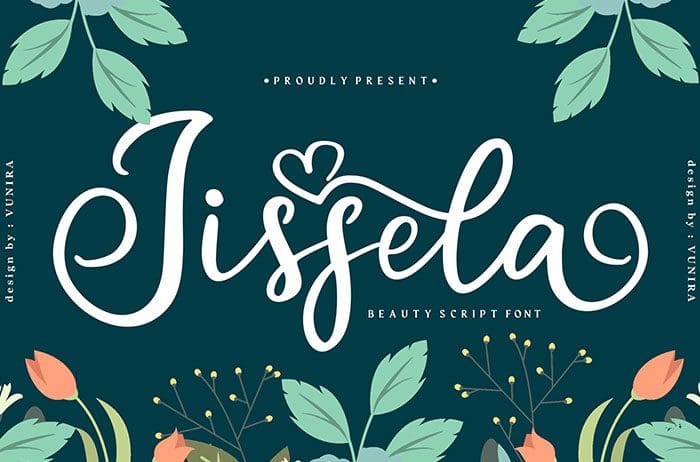
Jissela is a delicate and flowing brushed Script Font. It is suitable for any branding, invitation, quote, t-shirt, poster, logo that you wish to develop. Thanks to Vunira Studio for sharing this font! Take a look at this portfolio for more of his stunning fonts.